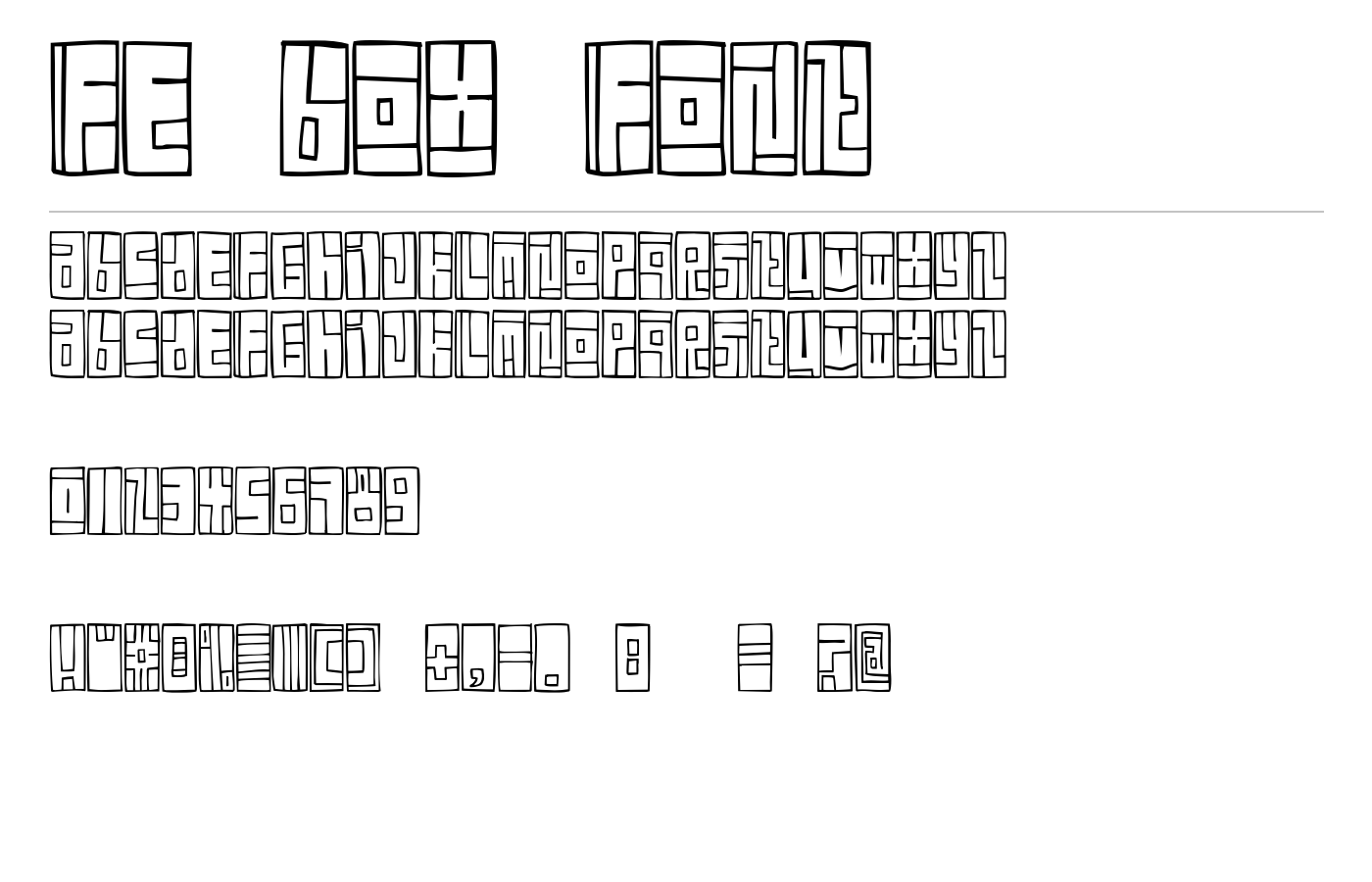
FE Box Font is a playful, hand-drawn sans serif typeface characterized by its irregular, blocky letterforms that resemble quirky boxes or panels. With its light weight, uneven stroke widths, and casual style, it brings an informal, creative vibe perfect for fun headlines, posters, packaging, and projects that seek a unique, artistic expression. This font works best where a distinctive, imaginative touch is needed, rather than for long text or formal uses.
FE Box Font
About FE Box Font
| Font family | FE Box Font |
| Designer | Samuel Marcius |